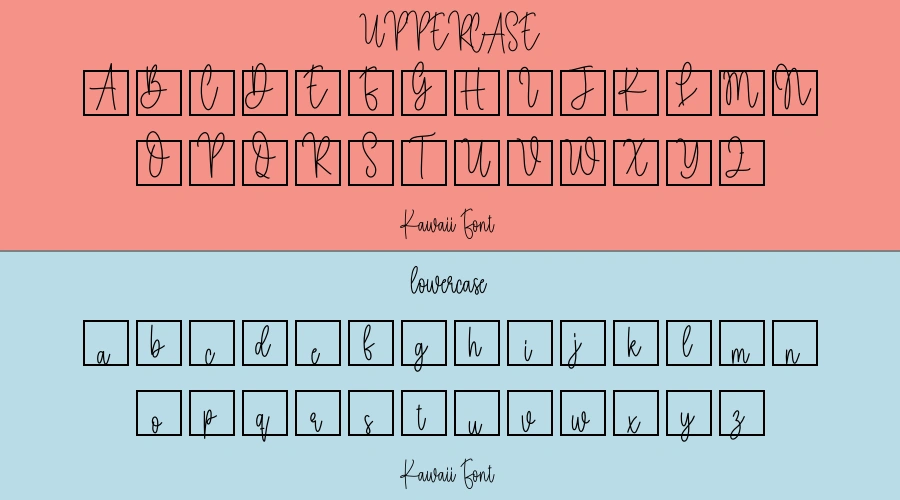
About Kawaii Font
Kawaii Font stands out for its distinctive combination of flourishes and memorable presence. Ideal for medical texts, it provides the elegance and manufacturing quality that professional projects demand. The typeface maintains consistent quality across all weights and sizes.
Key features include refined rhythmic patterns and practical display figures, enhancing typographic expression. In hero imagery applications, Kawaii Font demonstrates exceptional color consistency. The cap height ratio and character contribute to its distinctive character and professional appeal.